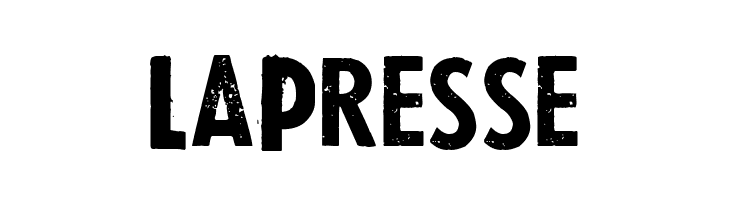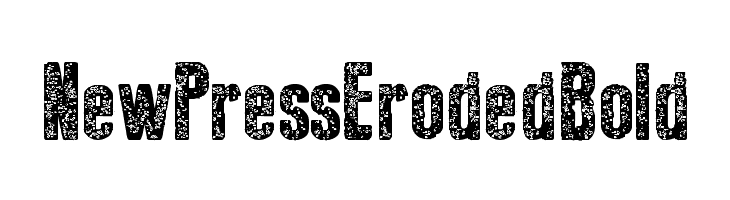
A modern, clean sans-serif font with uniform strokes and excellent legibility.
A bold, distressed font with a vintage, rugged appearance.
A dynamic, brush-style font with expressive, hand-painted strokes.
A dynamic, handwritten-style font with medium contrast and expressive strokes.
A bold, textured font with a hand-painted, expressive style.
A bold, dynamic calligraphic font with expressive brush-like strokes.
A bold, hand-drawn font with an expressive, brush-like texture.
A vintage, monospaced slab serif font with a typewriter style and distressed texture.
A bold, distressed font with an eroded, vintage texture.
A distressed, italicized font with a rugged, eroded appearance.